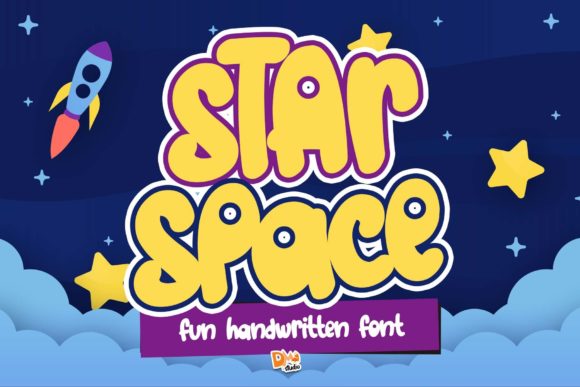
Venture into a realm of creativity with Star Space Font, a captivating display font that radiates boldness and thickness in every letterform. From the intricate swirls of your digital designs to the tangible charm of handmade crafts, Star Space Font effortlessly complements your creative endeavors, adding a touch of sophistication and elegance.
Immerse yourself in the versatility of Star Space Font, a font family that adapts seamlessly to a myriad of projects. Whether you're crafting personalized greeting cards, captivating presentations, or intricate Cricut designs, Star Space Font elevates your creations with its distinct character. Unleash your imagination and let the possibilities soar with this versatile font.
Step into the spotlight with Star Space Font, the ultimate font for capturing attention and making a statement. Its bold and thick strokes command presence, ensuring your designs leave a lasting impression. Imagine the allure of your cake toppers, etched with Star Space Font, as they shimmer under the lights, captivating the eyes of all who behold them.
With Star Space Font, you'll embark on a journey of creative exploration, discovering new depths of expression with each project. Its boundless potential awaits your imagination, ready to transform ordinary designs into extraordinary works of art. Let Star Space Font be your creative companion, guiding you towards design excellence.
Seize the opportunity to elevate your designs with Star Space Font, a font that embodies boldness, versatility, and captivating charm. Its distinctive letterforms and endless possibilities await your creative touch. Embrace the power of Star Space Font and let your creations shine brighter than ever before.